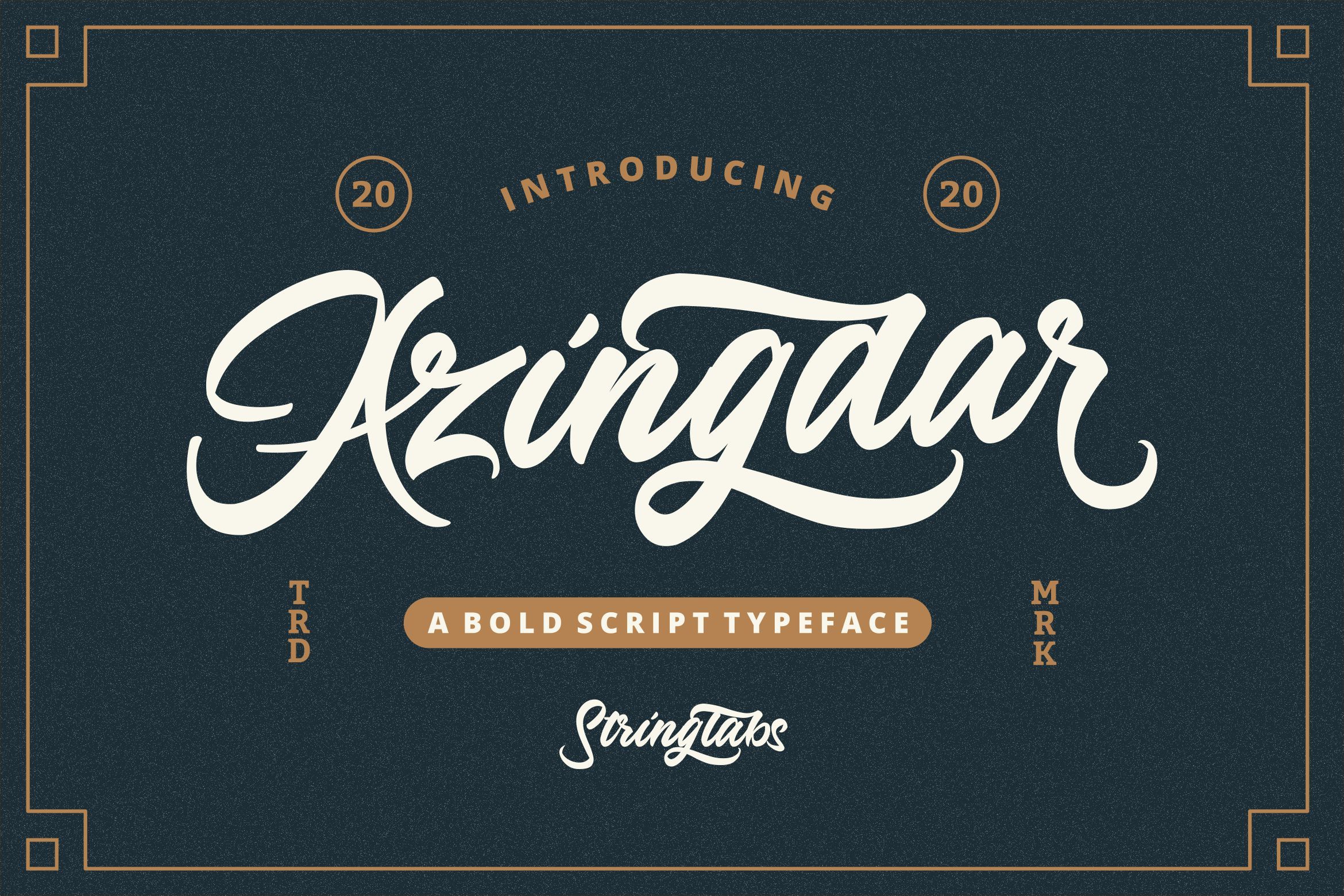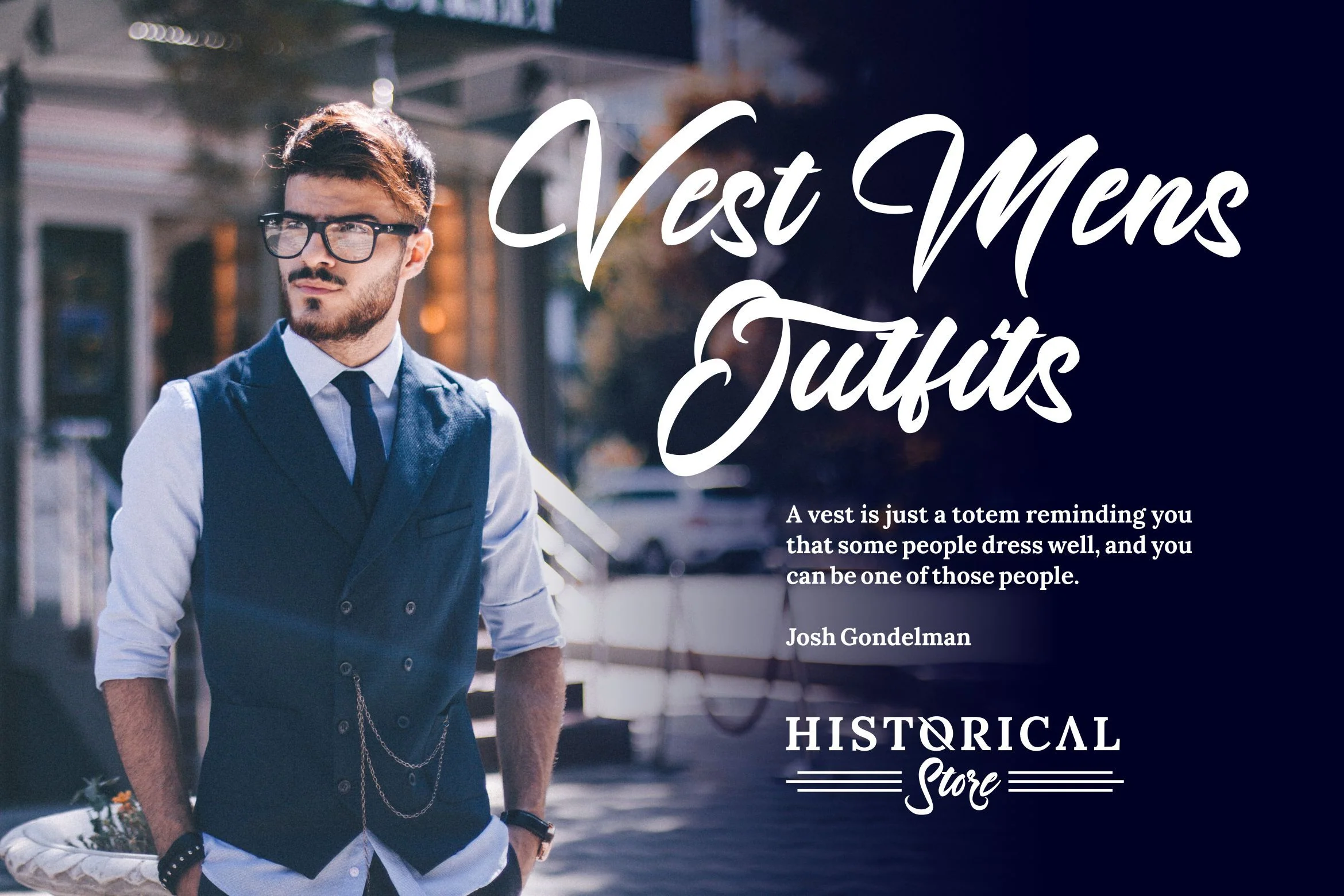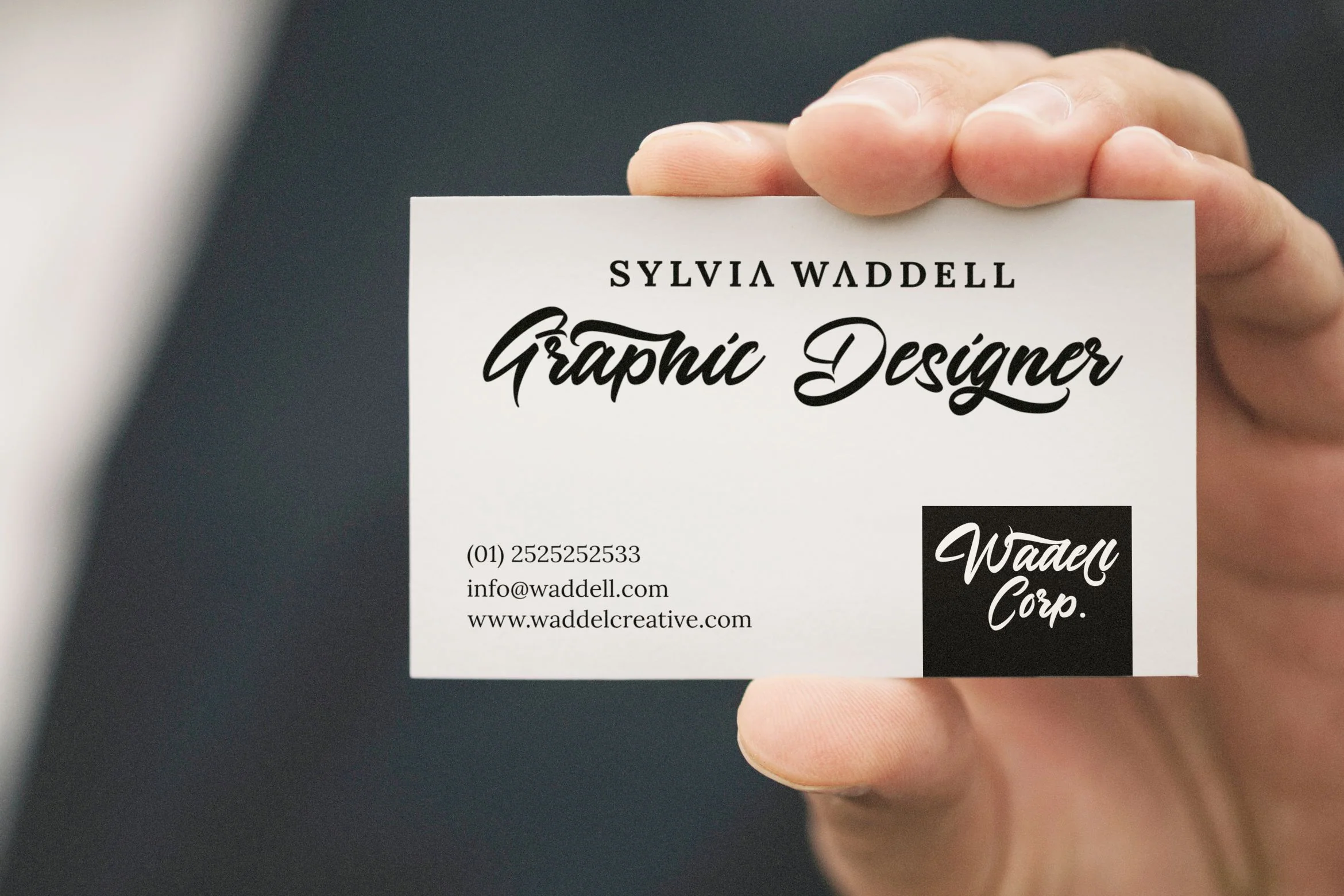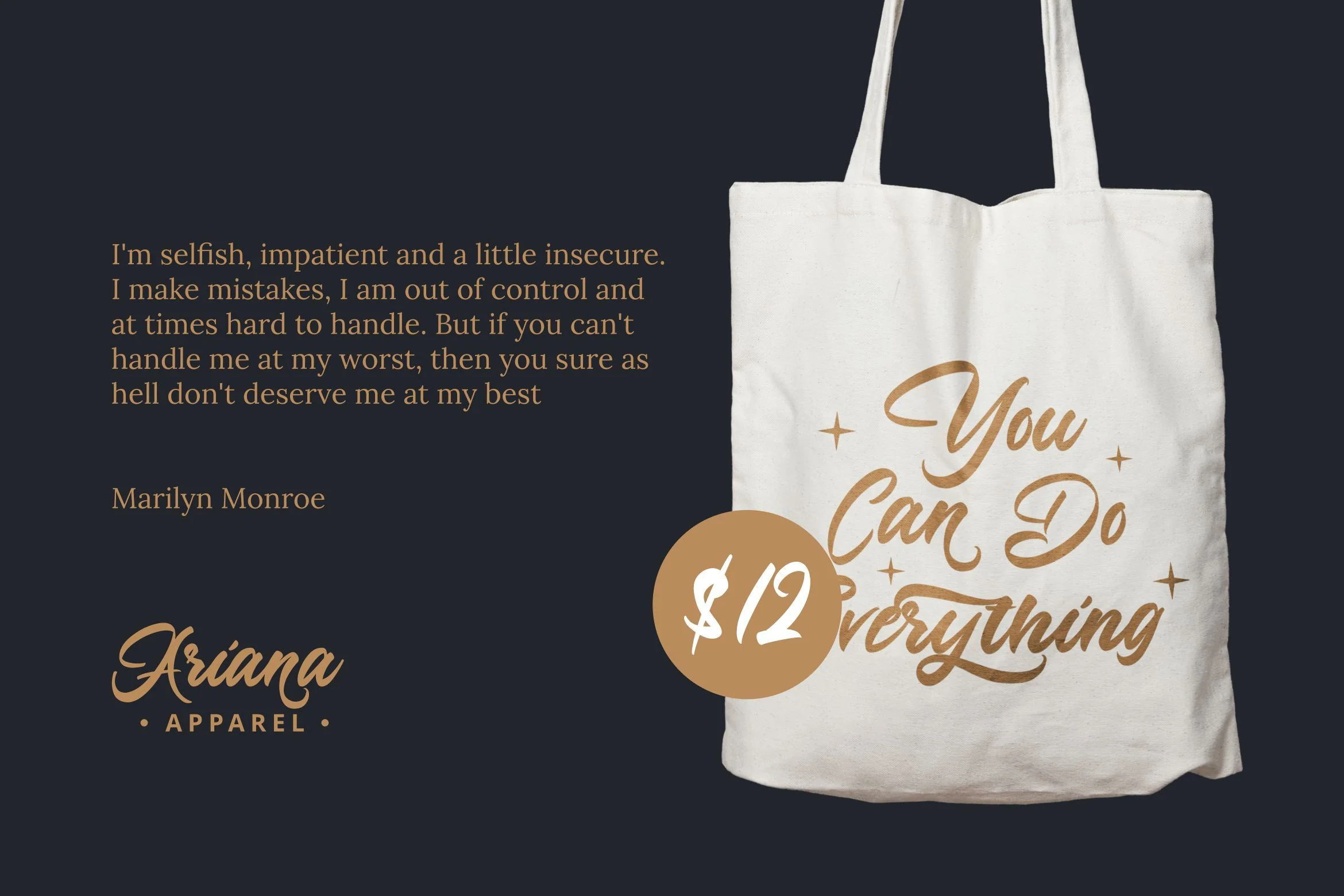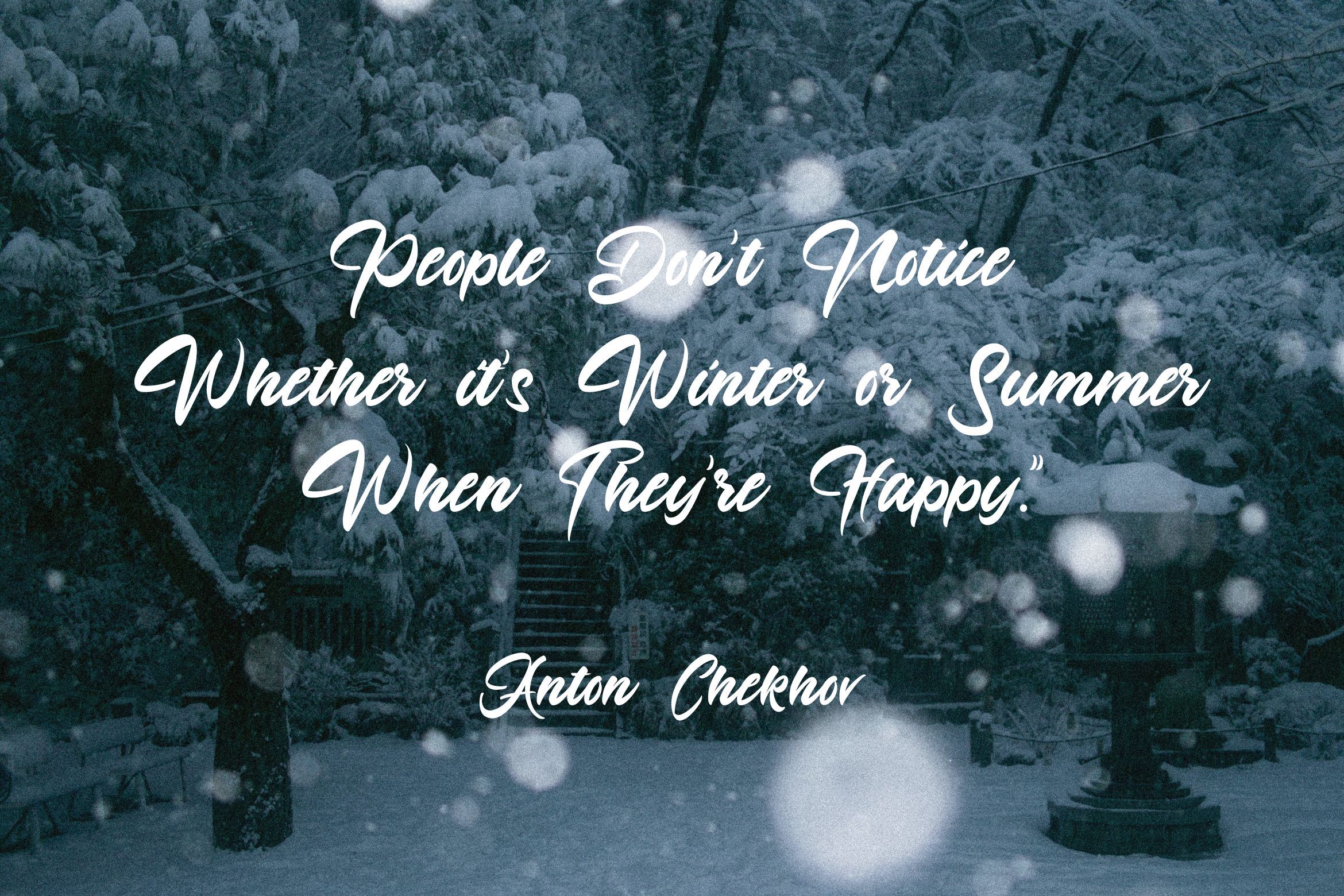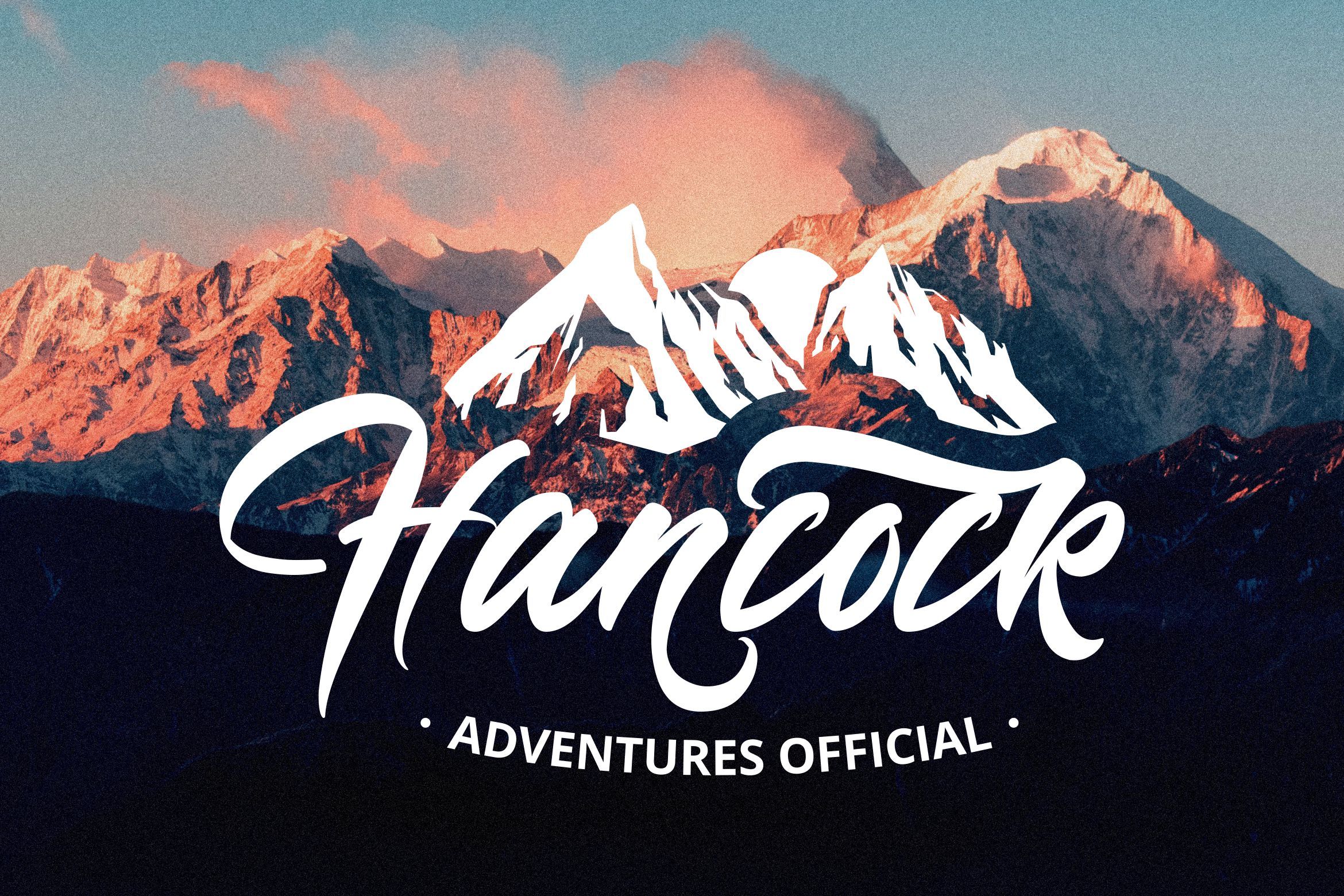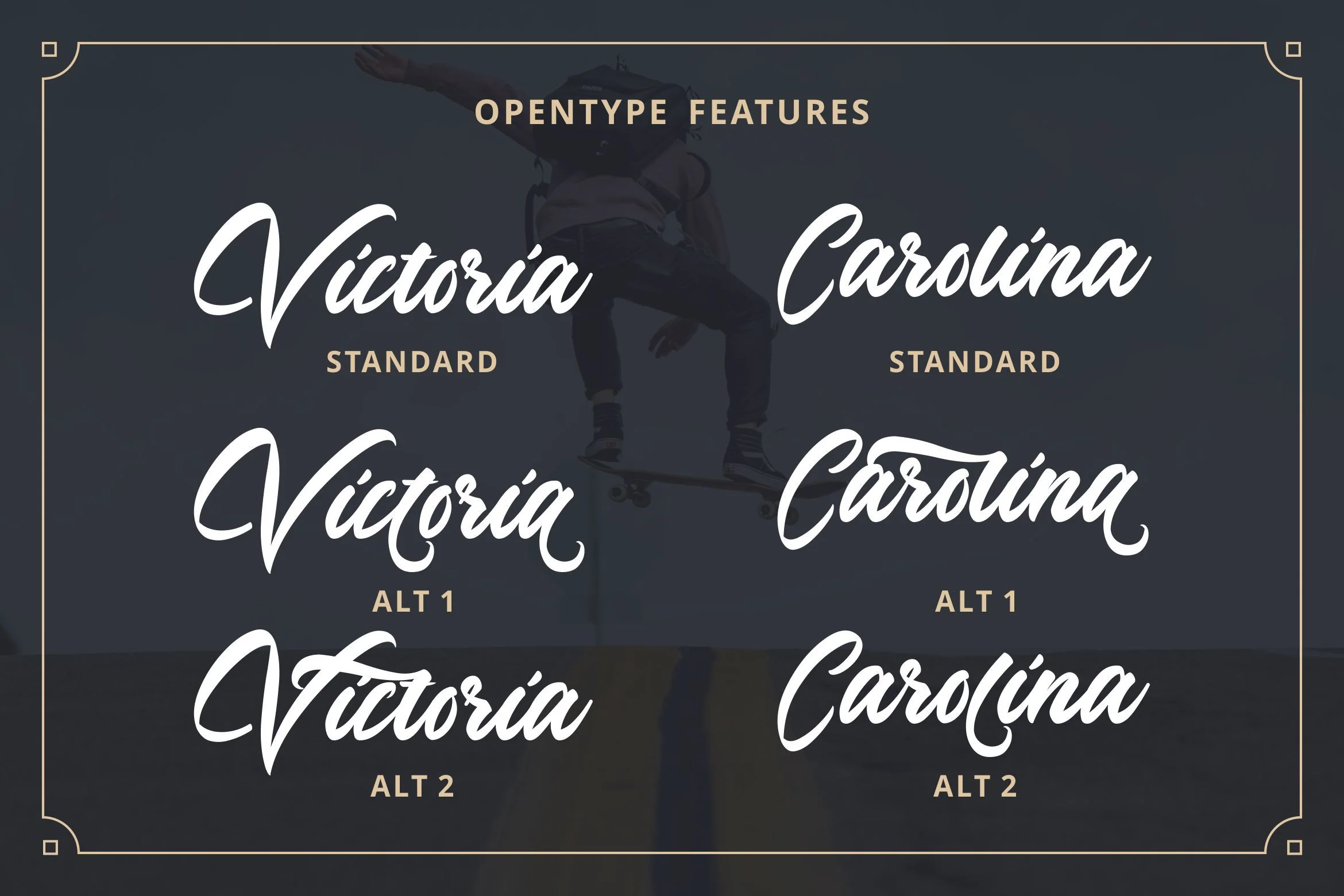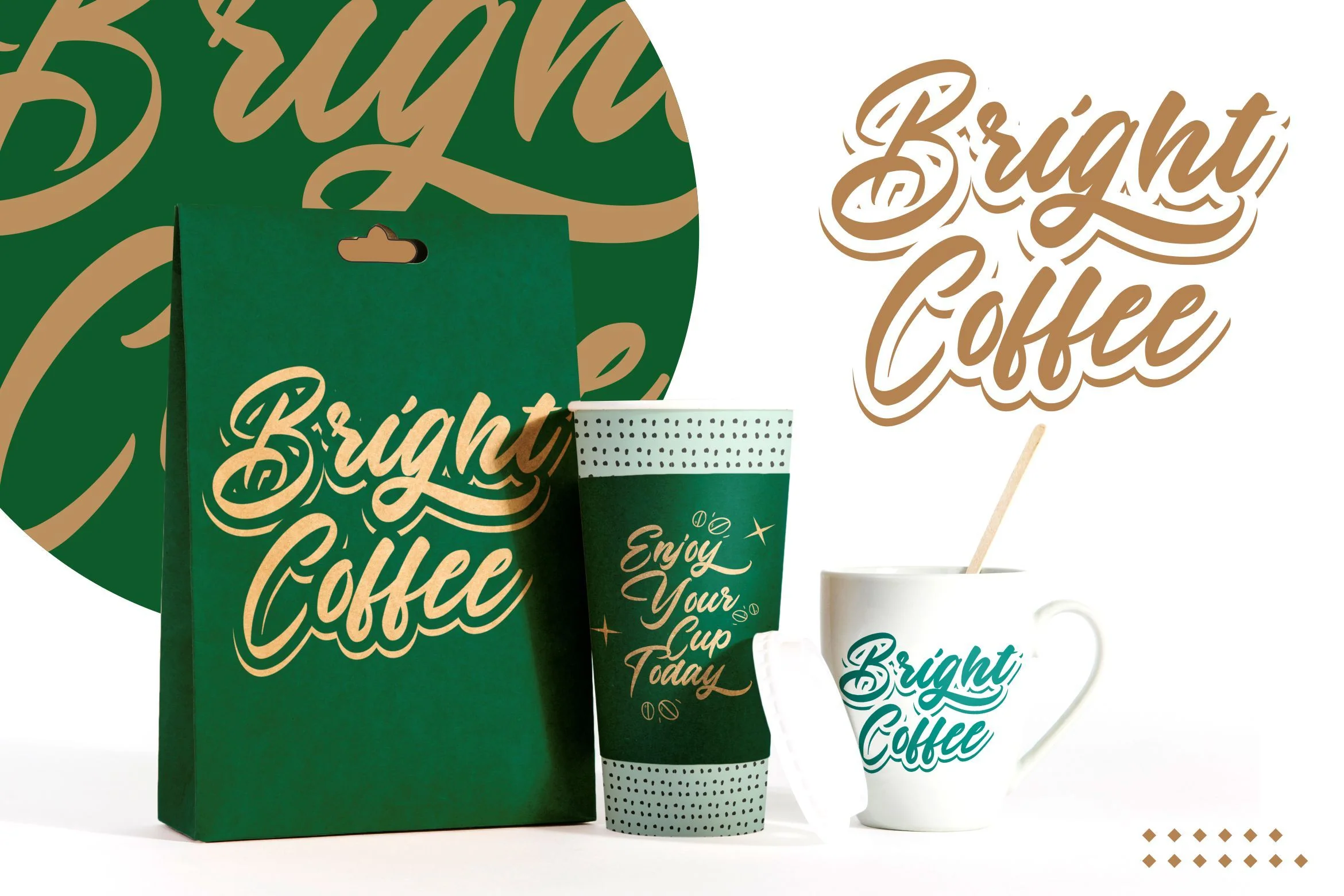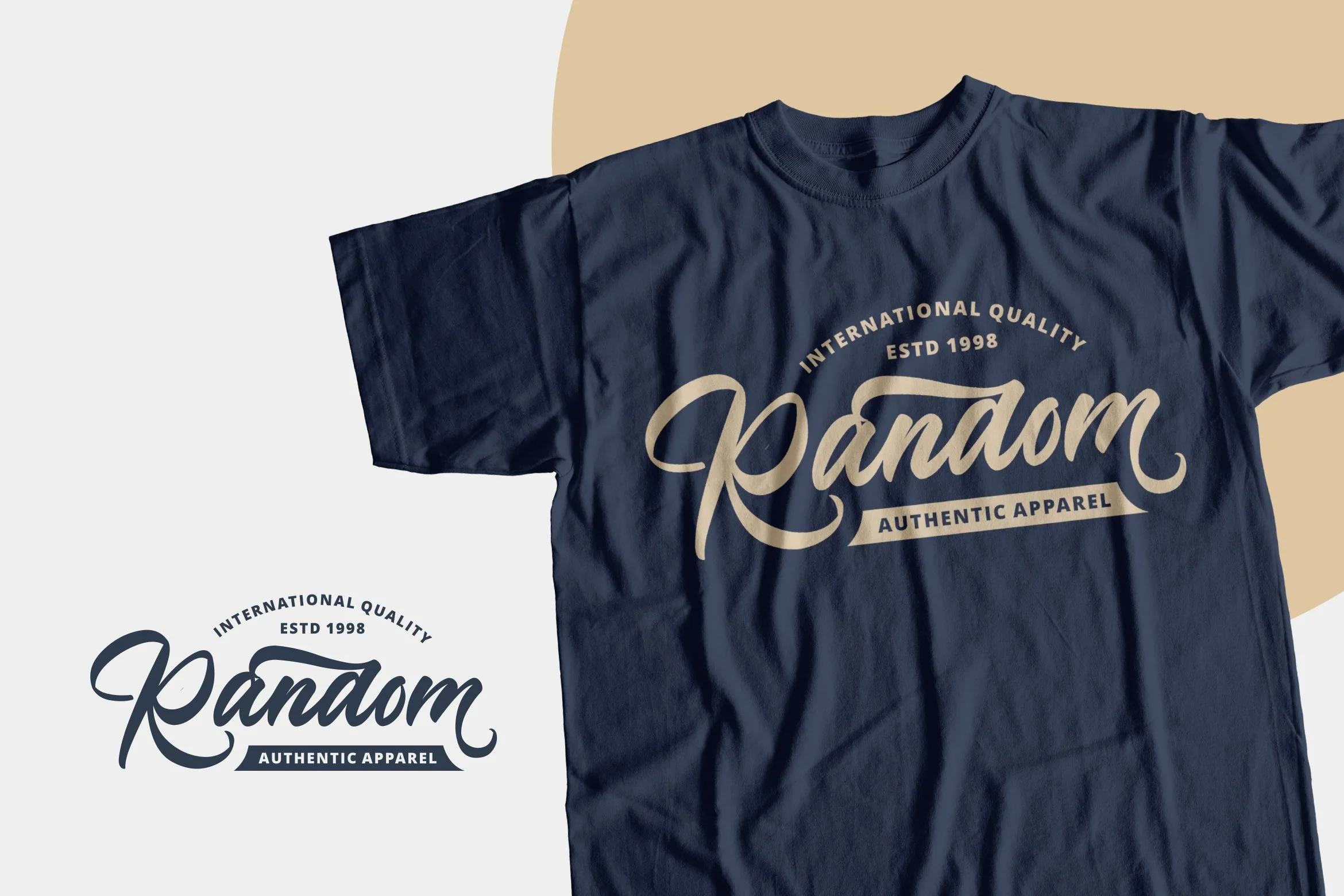
Azingdar - Retro Bold Script Font
Introducing Azingdar - Retro Bold Script Font
Azingdar is a Retro bold script with Groovy style, unique design taste and combine with classic retro style of the 80s, trendy, vintage, and sporty. The Azingdar is perfect for retro lovers, besides this font is also perfect if used for brands such as: barbershop, motorcycle club, clothing, logo brand, coffee shop, shoe brands, hipster and many more.
This Font Template contains Classy, Elegant, Creative, Cool and has a Unique Concept.
- Stylistic Alternate 1
- Stylistic Alternate 2
- Stylistic Alternate 3
Introducing Azingdar - Retro Bold Script Font
Azingdar is a Retro bold script with Groovy style, unique design taste and combine with classic retro style of the 80s, trendy, vintage, and sporty. The Azingdar is perfect for retro lovers, besides this font is also perfect if used for brands such as: barbershop, motorcycle club, clothing, logo brand, coffee shop, shoe brands, hipster and many more.
This Font Template contains Classy, Elegant, Creative, Cool and has a Unique Concept.
- Stylistic Alternate 1
- Stylistic Alternate 2
- Stylistic Alternate 3